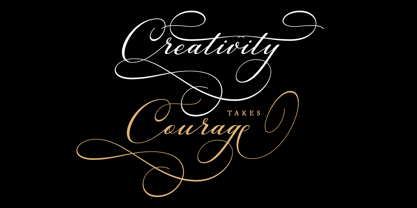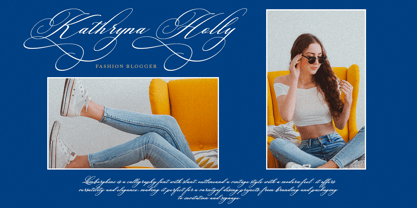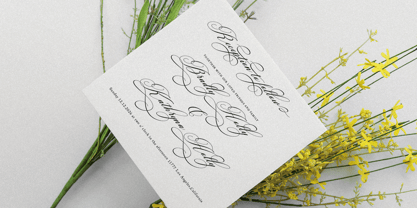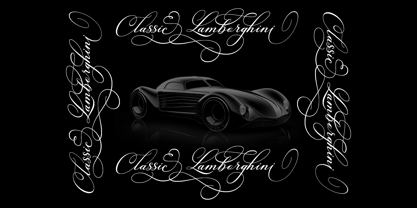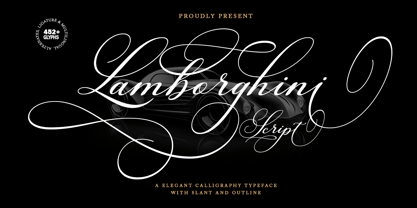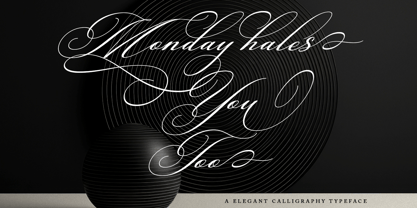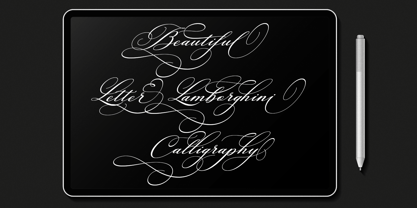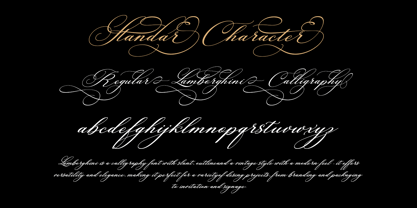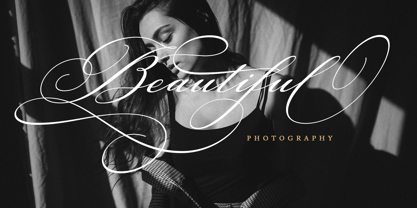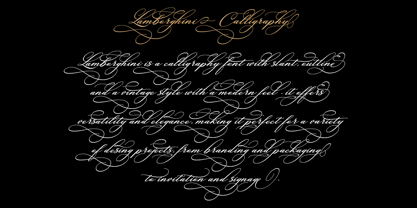
Lamborghini Script
by Hrz Studio
The Lamborghini Script Font Family was designed by Has Rizal and published by Hrz Studio. Lamborghini Script contains 4 styles and family package options.
Lamborghini Script | Organic Calligraphy, with elegant slant, outline, suitable for various projects such as: logos, branding projects, homeware designs, product packaging, mugs, quotes, posters, shopping bags, t-shirts, book covers, business cards, invitation cards, greeting cards, labels, photography, watermarks, special events, and all your other beautiful projects that need a touch of Organic Calligraphy.